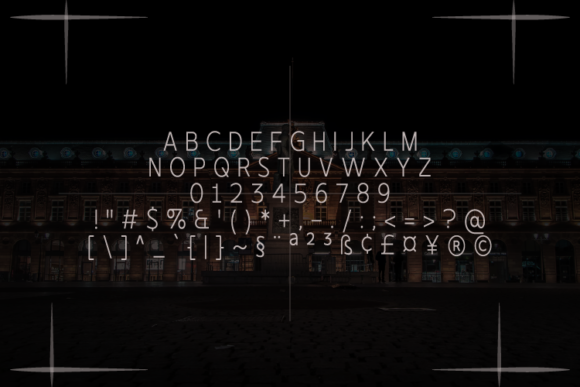
The Perfect Match for Your Next Design Project
Have you ever stared at a blank page, waiting for the perfect font to inspire your next design project? That moment of creative frustration is all too familiar for many of us. But what if you could find a font that effortlessly elevates your designs, making them stand out in a crowded market? Enter the Arkelogue Light Font, a clean and elegant sans serif typeface designed to bring a touch of sophistication to any project.
This versatile font is not just a pretty face; it’s a valuable tool for designers looking to create stunning visuals that communicate their message effectively. With its 10 different weights, from thin to extra black, you can choose the perfect version of Arkelogue Light Font to match your design’s tone and style.
Arkelogue Light Font Features
- Unique Characteristics: Arkelogue Light features a unique blend of modern and vintage elements, with subtle flair and elegance, making it perfect for creative and artistic projects.
- Language Support: The font includes comprehensive support for Latin-based languages, including English, Spanish, French, German, Italian, and many more, ensuring that your text will be easily readable and accessible.
- Scalability: Arkelogue Light is designed to be highly scalable, allowing it to be used effectively in a wide range of applications, from small text to large headings and titles.
Arkelogue Light Font Review
Overall, I found Arkelogue Light to be a unique and versatile font that can add a touch of elegance to any design project.
- Beautiful, hand-drawn feel that’s perfect for creating a sense of whimsy and sophistication.
- Extremely legible, even at small font sizes, making it ideal for body text and headings.
- Includes a wide range of language support, ensuring it’s suitable for projects with diverse audiences.
- Works well for both digital and print applications, providing a cohesive look across various mediums.
- May be too ornate for some designs, potentially overwhelming the viewer.
- Lacks a bold weight, which could limit its use in certain applications, such as headlines or titles.
- Not ideal for projects that require a modern, minimalist aesthetic.
Overall, I’d give Arkelogue Light 4 out of 5 stars. It’s a solid choice for designers looking to add a touch of sophistication and elegance to their projects. However, it may not be the best fit for every design style or application.
Getting the Most Out of Arkelogue Light Font
Arkelogue Light Font is perfect for creating a clean and modern design. To get the most out of it, use it for:
- Body text for a clean and readable look
- Combining with other fonts for a unique design
Arkelogue Light Font is ideal for:
- Graphic design projects
- Web design projects
- Business cards and brochures Alternatives to Arkelogue Light Font
- Set the font as the primary font for headings and subheadings.
- Combine with high-quality images of breathtaking landscapes and cityscapes.
- Use a clean and minimalist layout to let the Arkelogue Light Font shine.
- Use a bold font, like Arial or Helvetica, for accent text to provide contrast.
- Choose a color scheme that reflects the destination’s atmosphere, such as a beachy vibe for a tropical island.
- Experiment with different font sizes to create visual hierarchy and emphasize key information.
- Use the font for headings, such as chapter titles and section headings.
- Combine with hand-drawn illustrations and playful graphics to create a whimsical atmosphere.
- Experiment with different font sizes and styles to convey emotions and emphasize key characters.
Comparison: Montserrat Light Font is more modern and edgy compared to Arkelogue Light Font, which is more rounded and elegant.
Arkelogue Light Font Creative ProjectsProject 1: Dreamy Travel Brochure
A visually appealing travel brochure that showcases exotic destinations and invites readers to explore.
To use Arkelogue Light Font in this project:
Project 2: Whimsical Children’s Book
A charming children’s book that tells a story of adventure and friendship, featuring the Arkelogue Light Font as the primary font.
To use Arkelogue Light Font in this project: